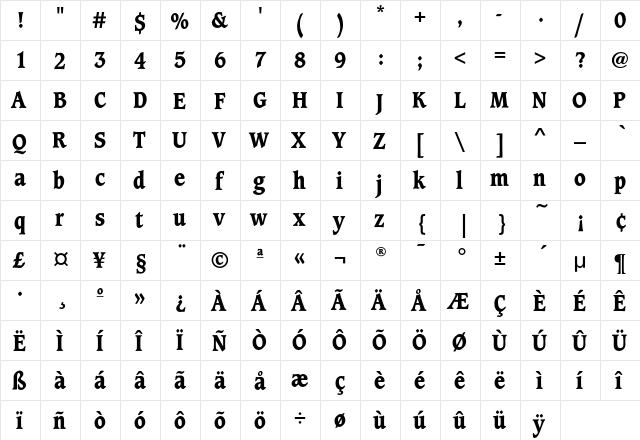
CaxtonEF ExtraBoldCond Font Preview
CaxtonEF ExtraBoldCond
Design Context for CaxtonEF Typeface
CaxtonEF takes a measured approach to typography — its balanced proportions and neutral character make it a reliable workhorse for both digital and print work. The heavy weight commands attention and anchors typographic hierarchies. The condensed width makes it efficient for tight spaces without sacrificing legibility.